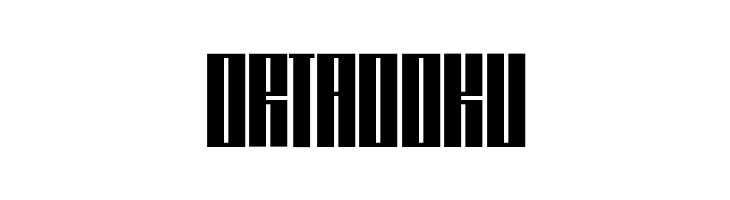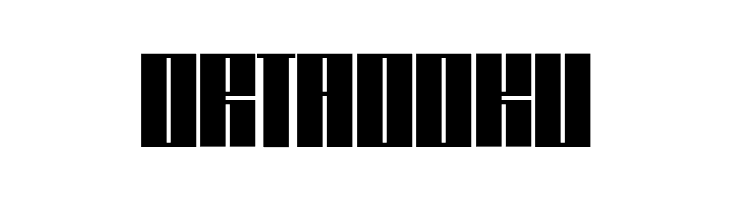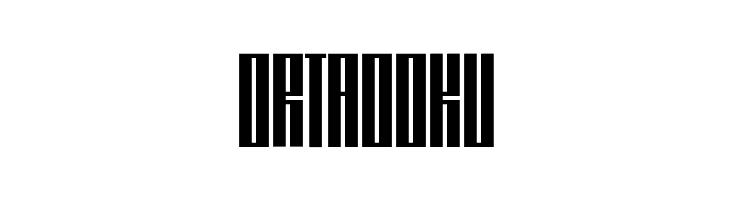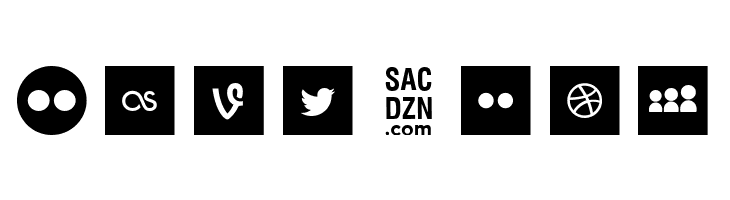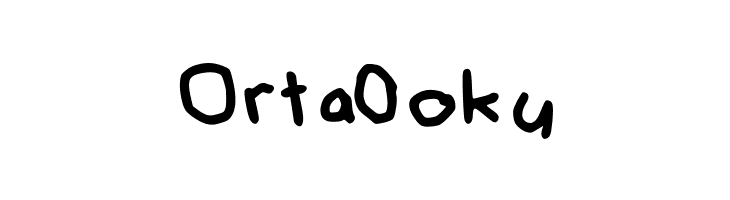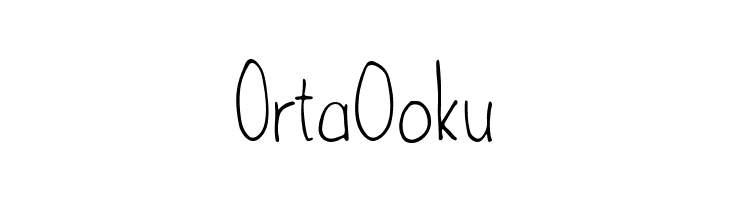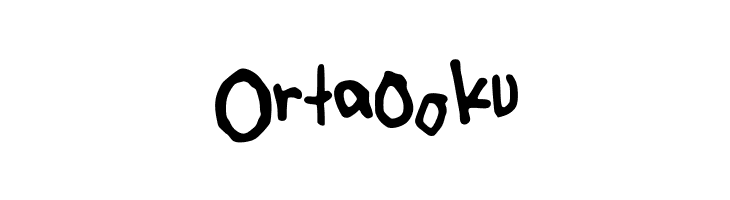
( Fonts by Marivo )
A bold, geometric font with uniform width and sharp angles.
( Fonts by Marivo )
A bold, geometric font with a blocky, modern design.
( Fonts by Marivo )
A bold, geometric font with uniform thickness and a modern, industrial style.
( Fonts by SAC Designs, Inc. )
Bold, geometric social icons with uppercase sans-serif text.
( Fonts by mcw )
A playful handwritten font with thin, elongated strokes and irregular letterforms.
( Fonts by Art Martinez )
A playful, handwritten font with irregular, marker-like strokes.